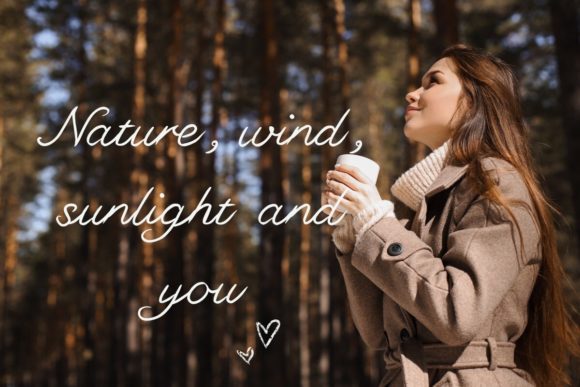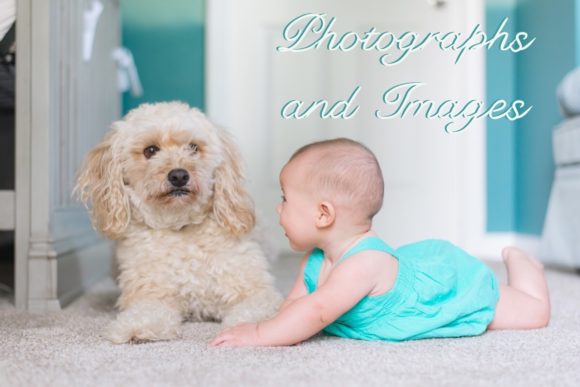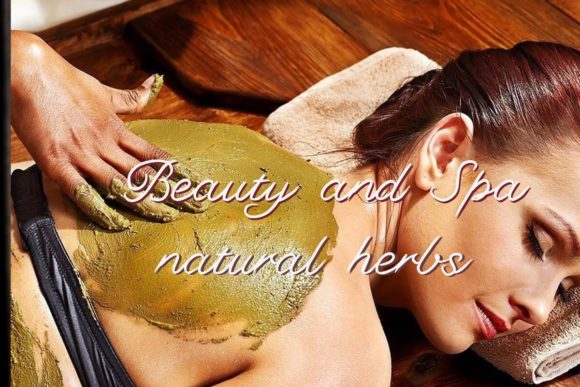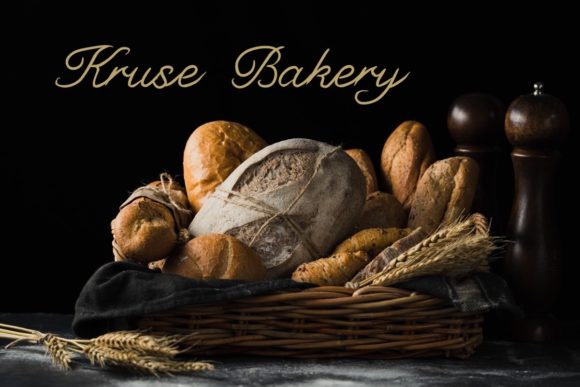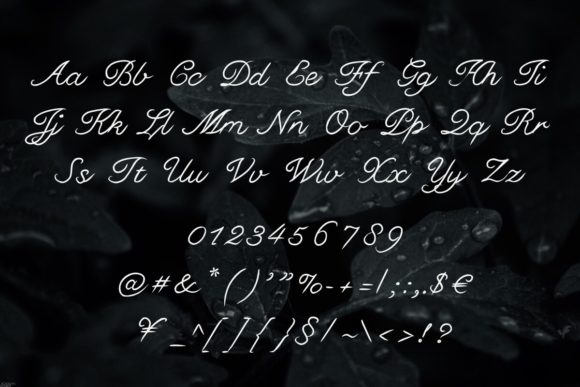
The Magic of First Love Font: A Designer’s Delight
I’ll never forget the time I was working on a project for a client who wanted a elegant and sophisticated look. I had spent hours browsing through font libraries, but nothing seemed to fit the bill. That was until I stumbled upon First Love Font. It was like a breath of fresh air – delicate, elegant, and flowing, it added a touch of magic to my design. In this article, I’ll share my experience with First Love Font, its features, and how to make the most of it in your designs.
So, what do I love about First Love Font? 🤔
• ✨ Beautifully balanced characters: Each letter is carefully crafted to create a sense of harmony and flow.
• ✅ Elegant and sophisticated: First Love Font exudes a sense of luxury and refinement, making it perfect for high-end designs.
• 🌈 Versatile: It matches a wide range of designs, from wedding invitations to branding and packaging.
Of course, no font is perfect, and First Love Font has a few quirks:
• ⚠️ Limited use in body text: While it’s stunning in headings and titles, it may not be the best choice for long blocks of text.
• 🤔 Some letters may require manual kerning: Depending on the design, you may need to adjust the spacing between certain letters for optimal results.
3. Experiment with OpenType features, such as Stylistic Alternates and Ligatures, to add more flair to your design.
The Story Behind First Love Font
First Love Font was created by a talented type designer who wanted to capture the essence of love and romance in a font. Inspired by classic calligraphy and handwritten scripts, the designer poured their heart and soul into crafting a font that would make designers swoon. The result is a font that’s both elegant and approachable, perfect for a wide range of creative projects.
What is First Love Font best used for? First Love Font is perfect for designs that require an elegant and sophisticated touch, such as wedding invitations, branding, and packaging.
Is First Love Font a script font? While First Love Font has a handwritten feel, it’s not a traditional script font. It’s a unique blend of elegance and approachability.